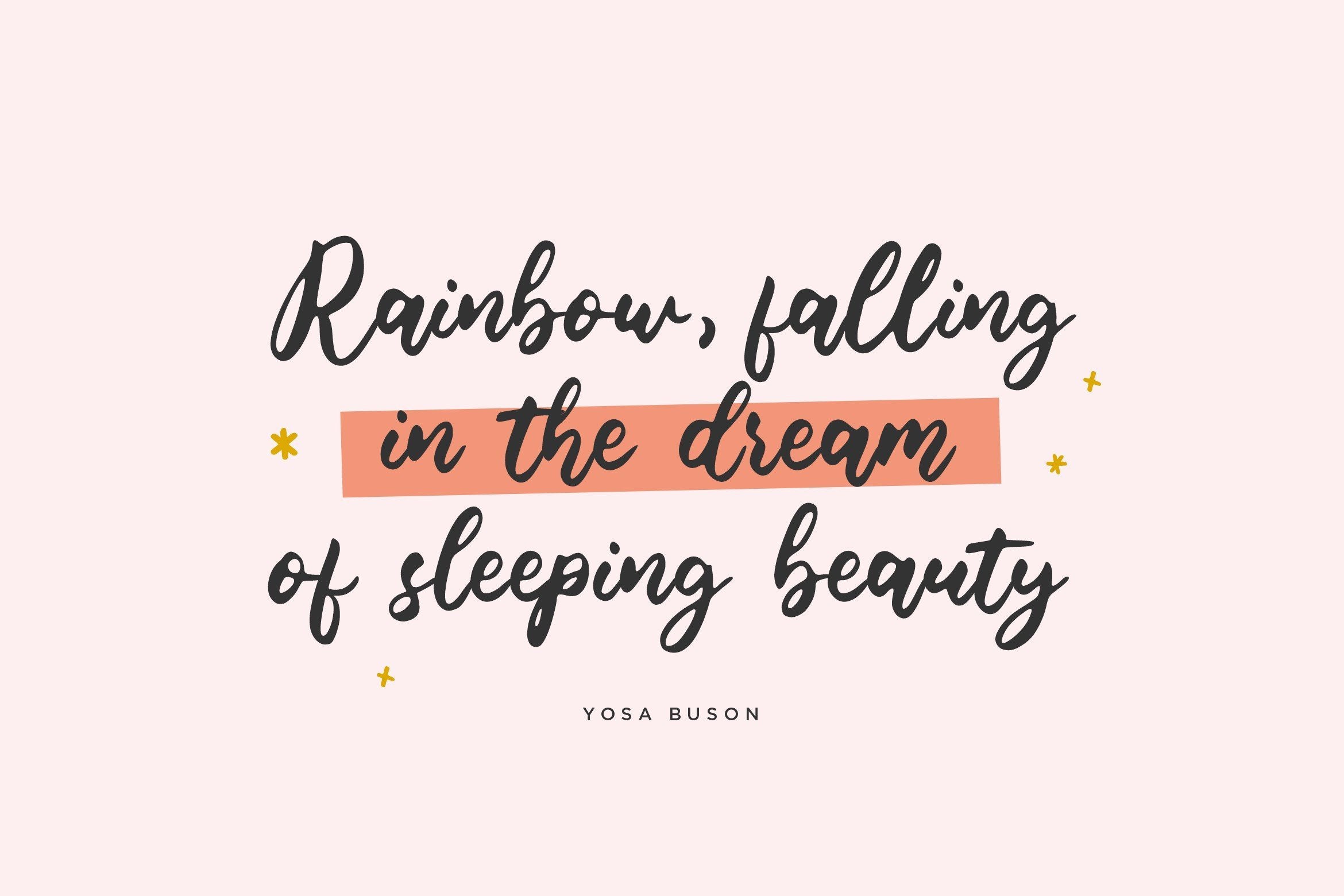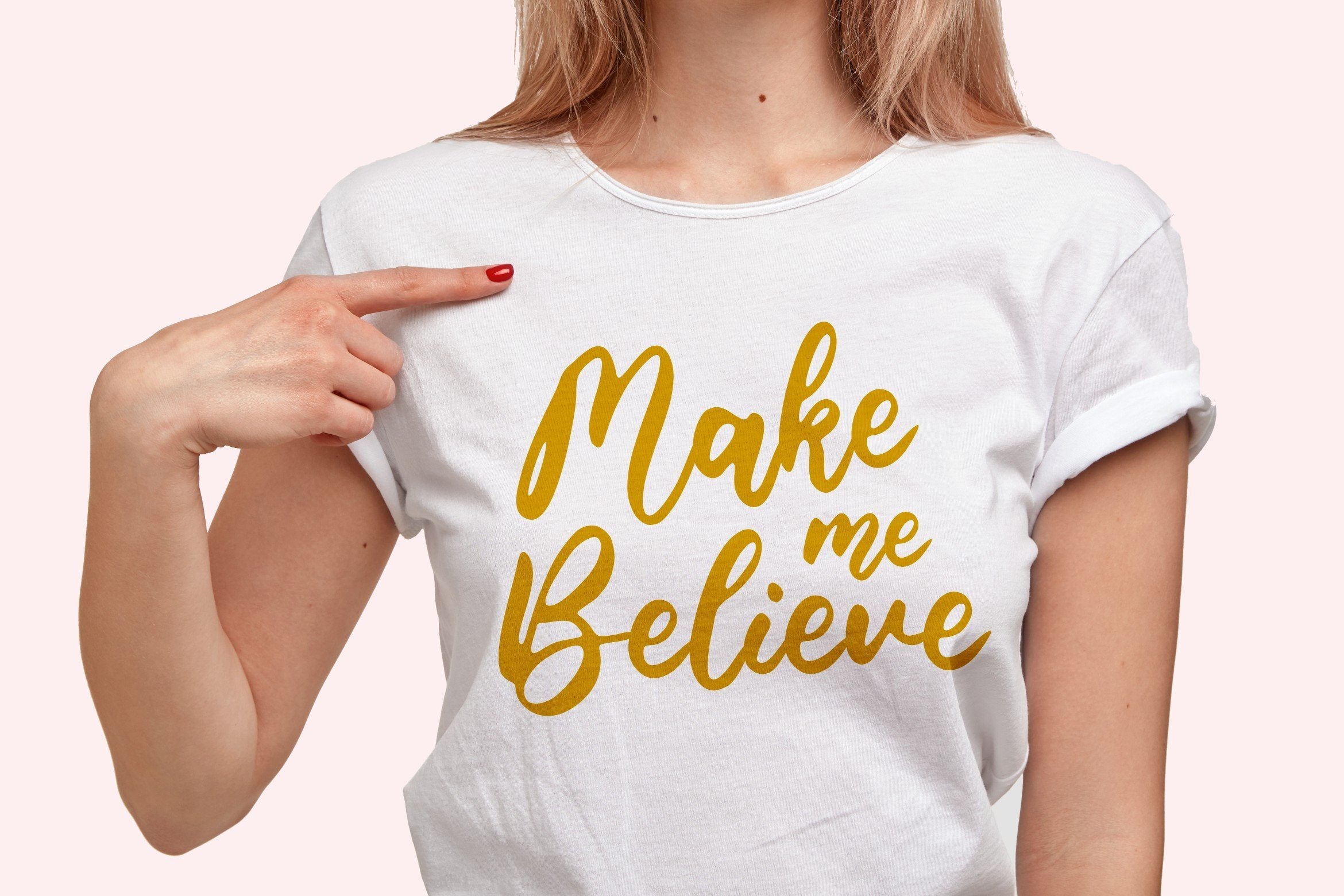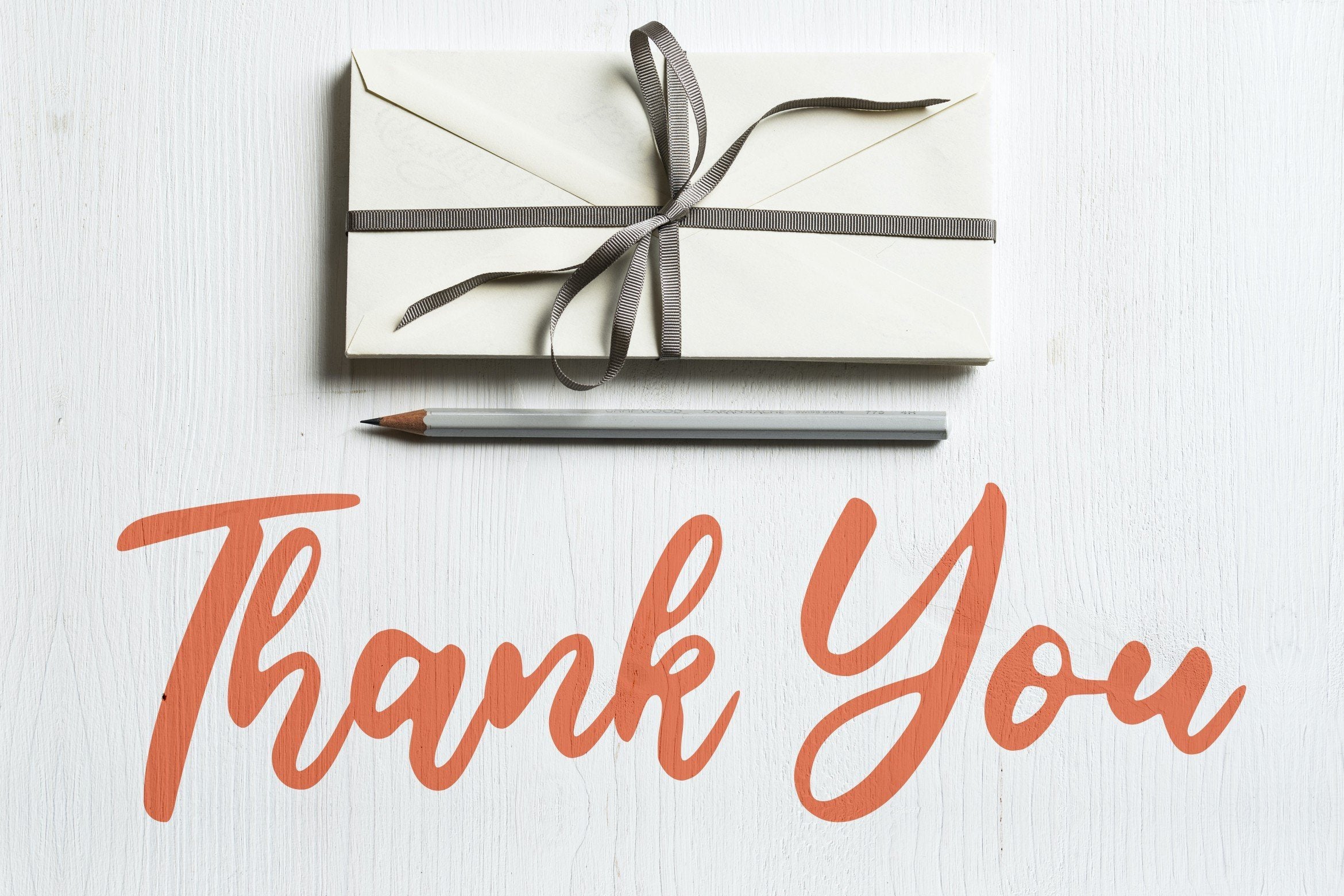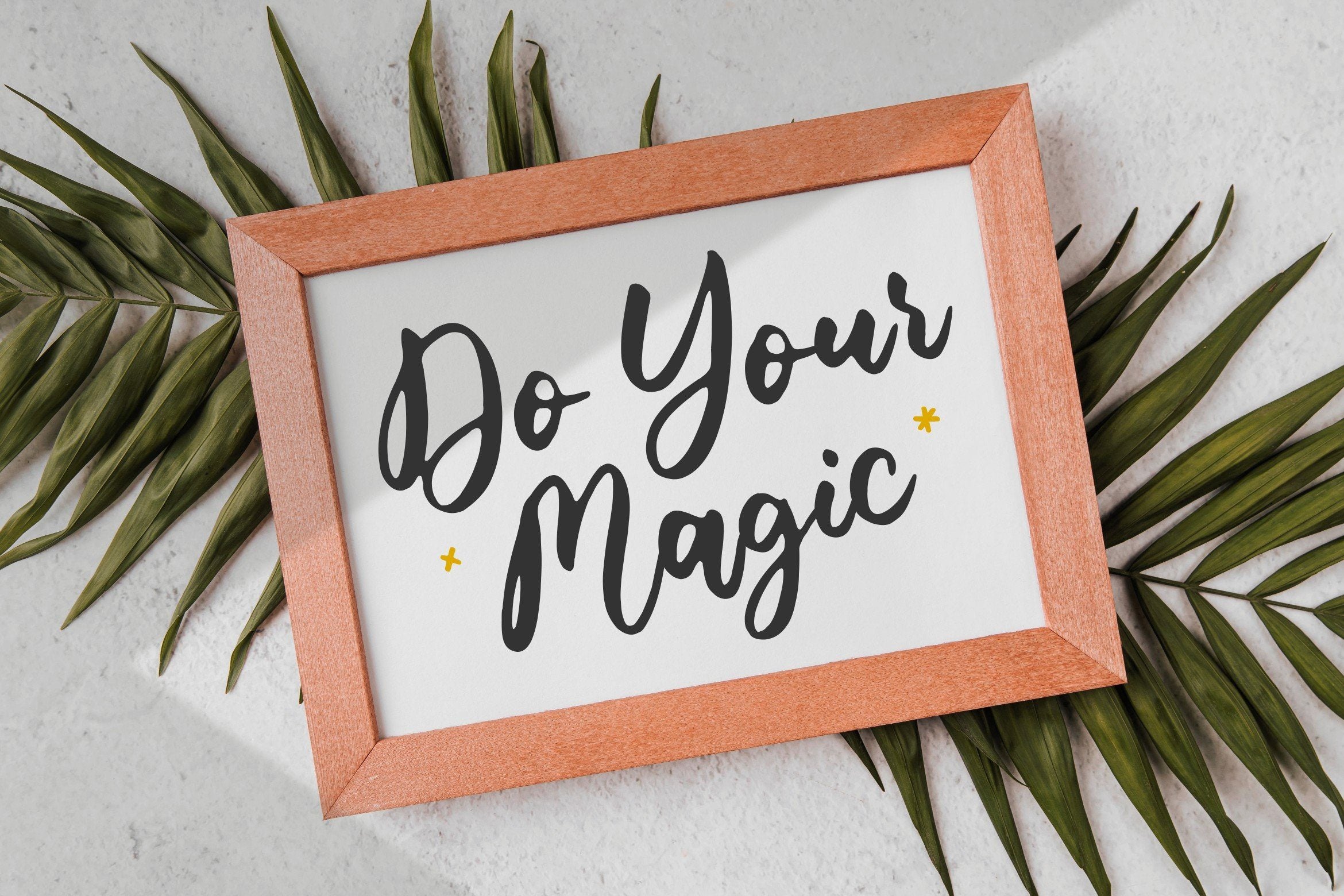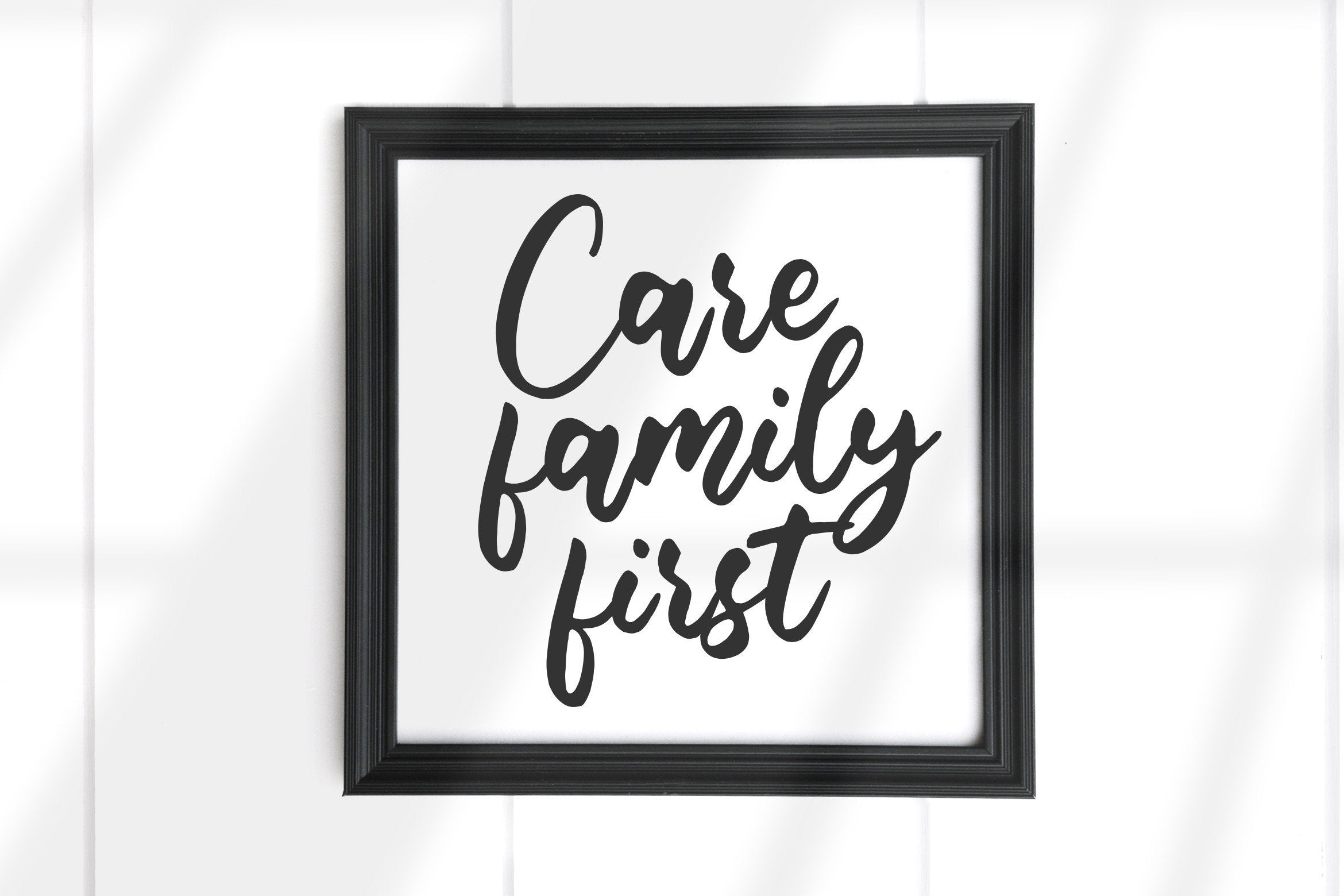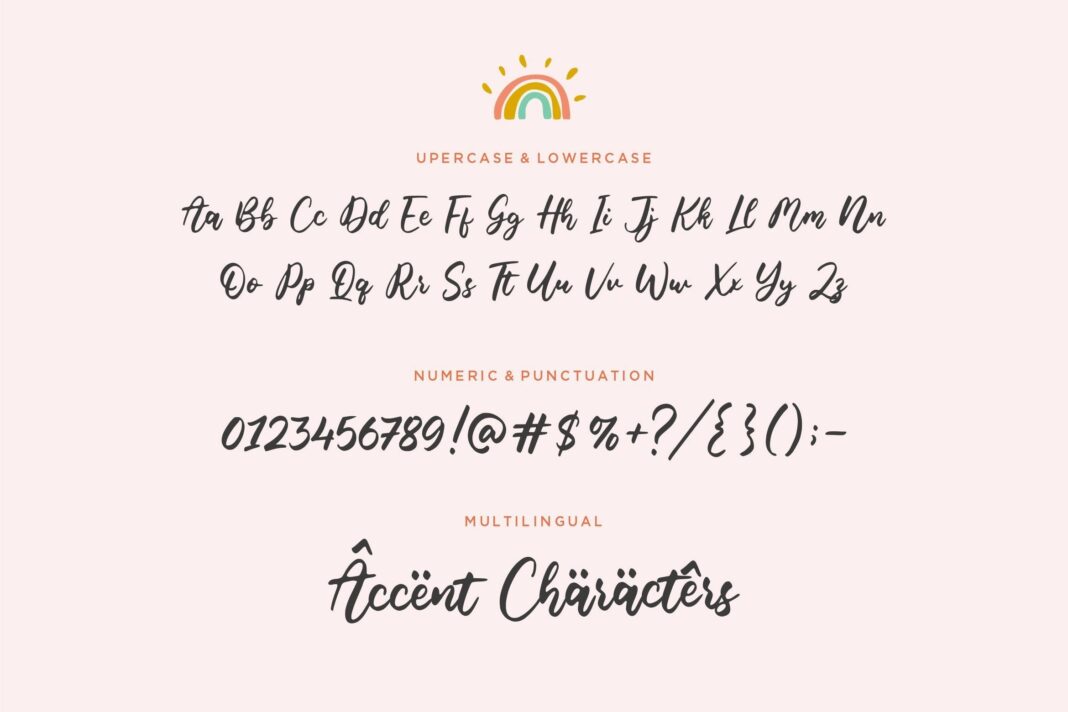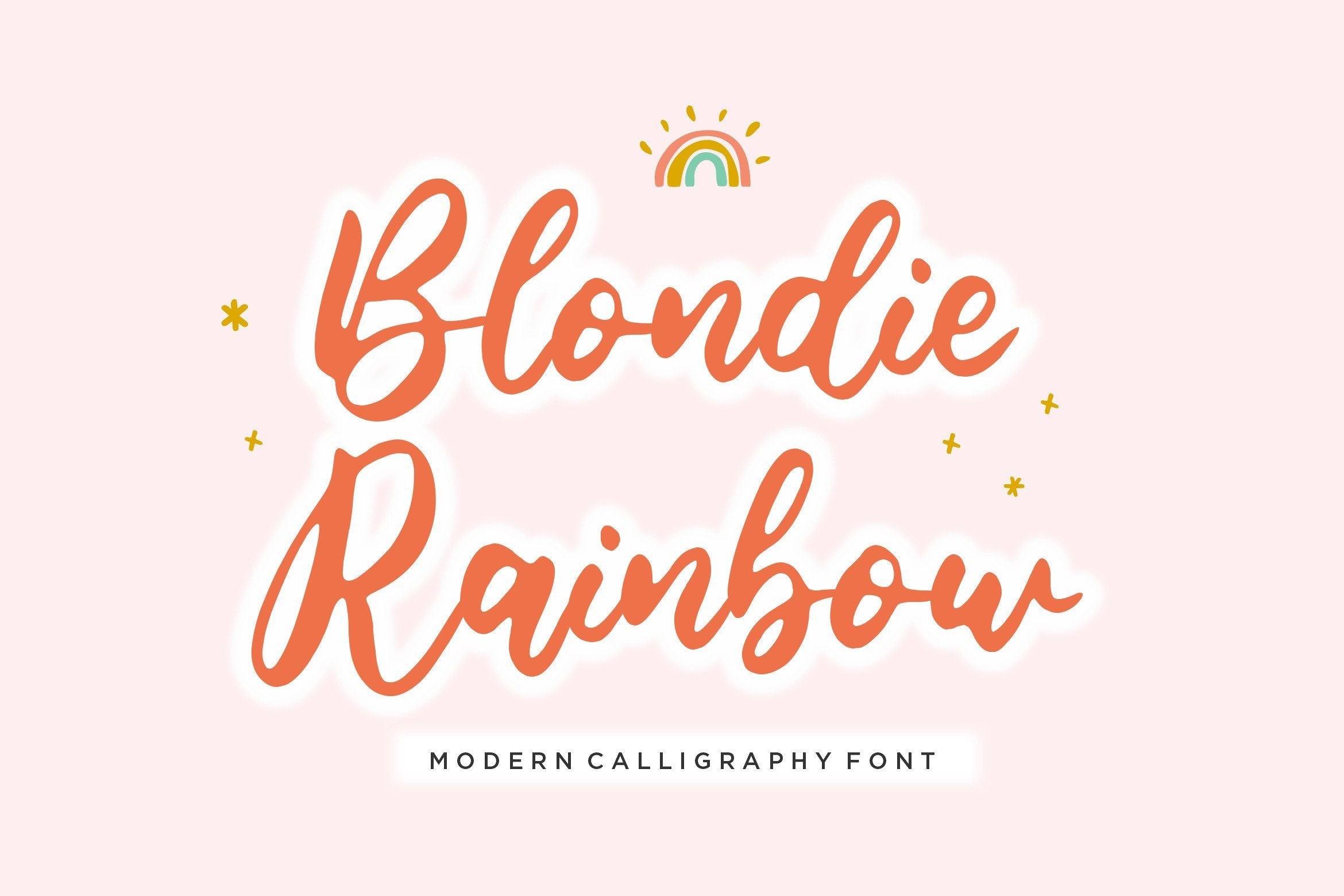
Blondie Rainbow Modern Calligraphy Font
Blondie Rainbow Modern Calligraphy Font Poster 1
About Blondie Rainbow Modern Calligraphy Font
Introducing by Balpirick Studio. Proudly Present, Blondie Rainbow Font. Blondie Rainbow is a Modern Calligraphy Font. Blondie Rainbow is a lovely and timeless handwritten font. It is the best choice for creating eye catching logos, branding and quotes. Every letter has a unique and beautiful touch, which will make your design come alive! This font includes TTF, OTF and WOFF, Blondie Rainbow also multilingual support. Enjoy the font, feel free to comment or feedback, send me PM or email. Thank you!